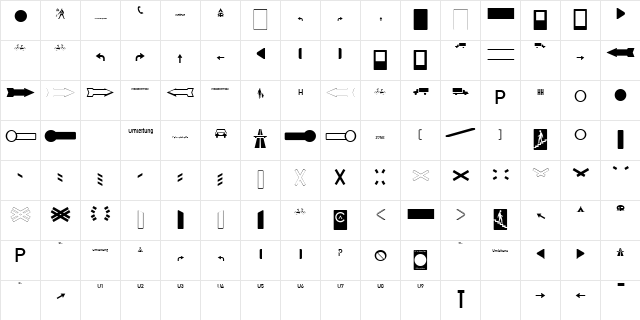
Zeichen Dreihundert Alt Regular
Foundry: Peter Wiegel
Designer: Peter Wiegel
Design Context for Zeichen Dreihundert Alt
Zeichen Dreihundert Alt is a composed and adaptable typeface that performs quietly and consistently across a wide range of design contexts.